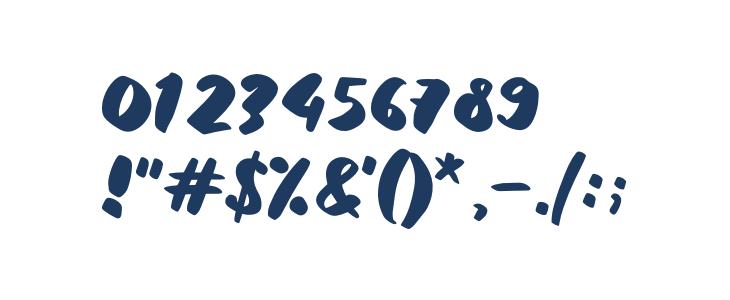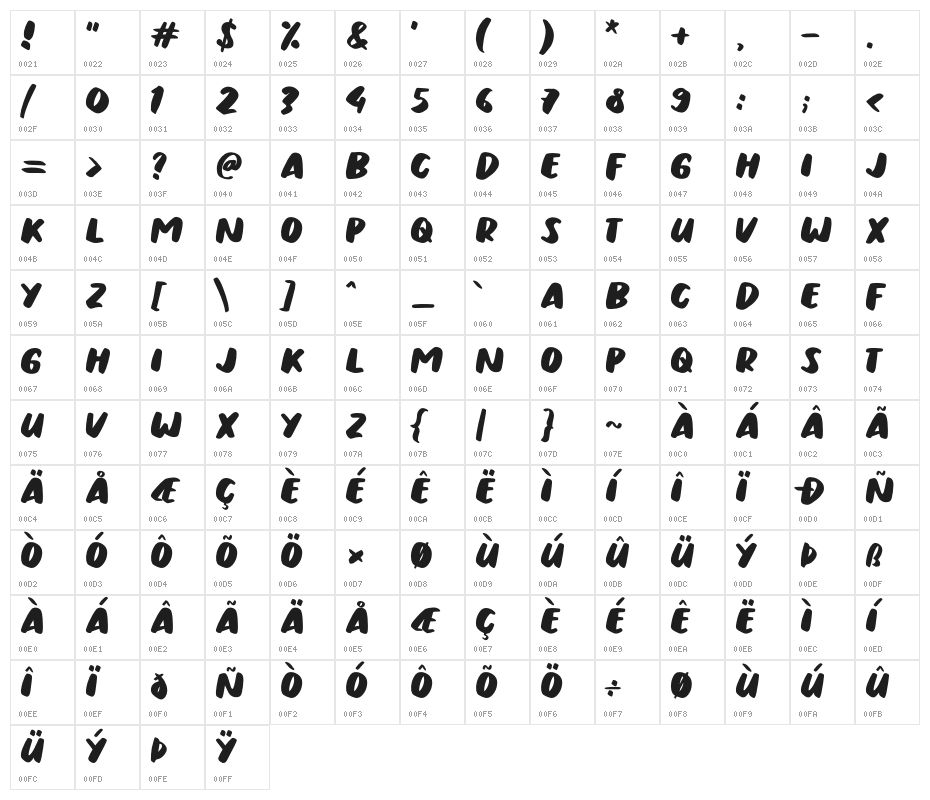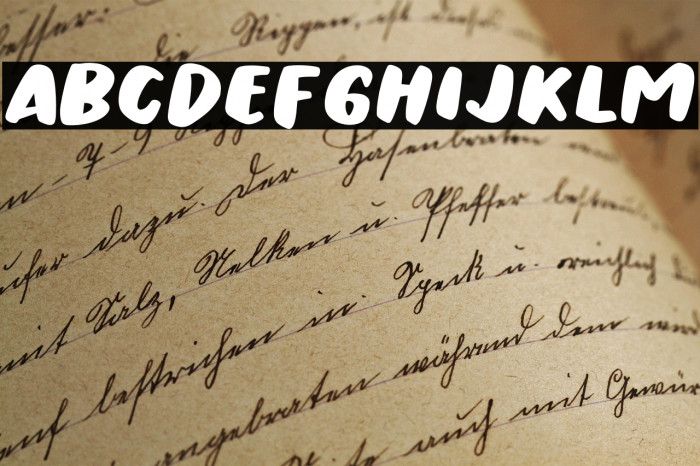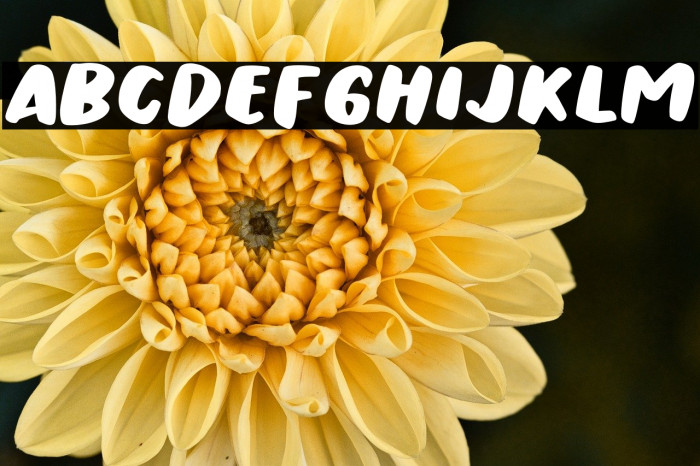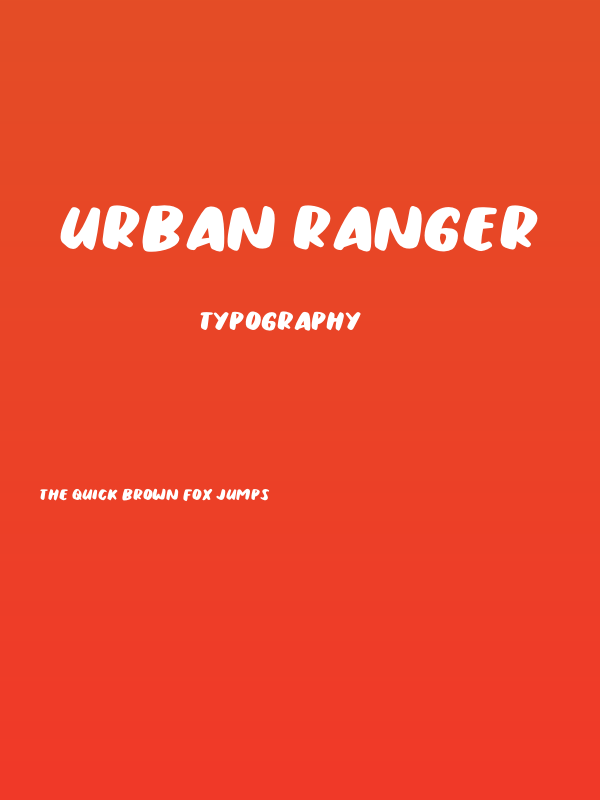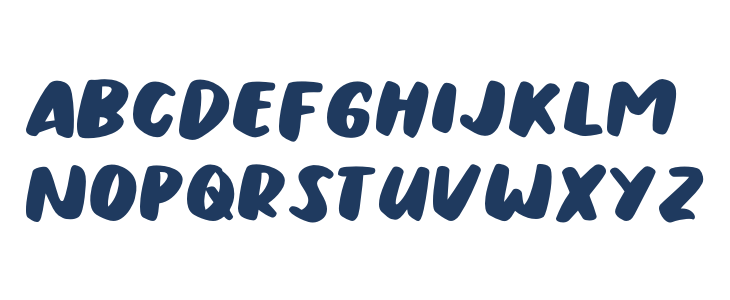
Urban Ranger Font
Urban Ranger Description
This font features a bold and playful style with a handwritten appearance. The characters are rounded and slightly irregular, giving it a casual and friendly look. The strokes are thick and consistent, providing a strong visual impact. The uppercase and lowercase letters maintain a cohesive design, with the lowercase letters slightly smaller and more compact. Numbers and special characters follow the same design principles, ensuring uniformity across all elements. The overall style is dynamic and energetic, making it suitable for projects that require a lively and informal touch.
| Use Case | Logos, Headlines, Posters |
| Proposed Projects | Ideal for children's books, playful branding, casual invitations, and social media graphics. |